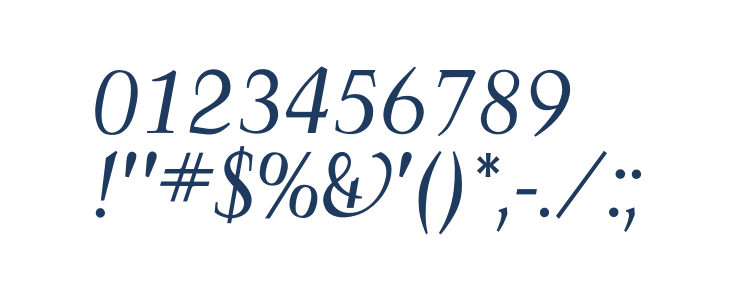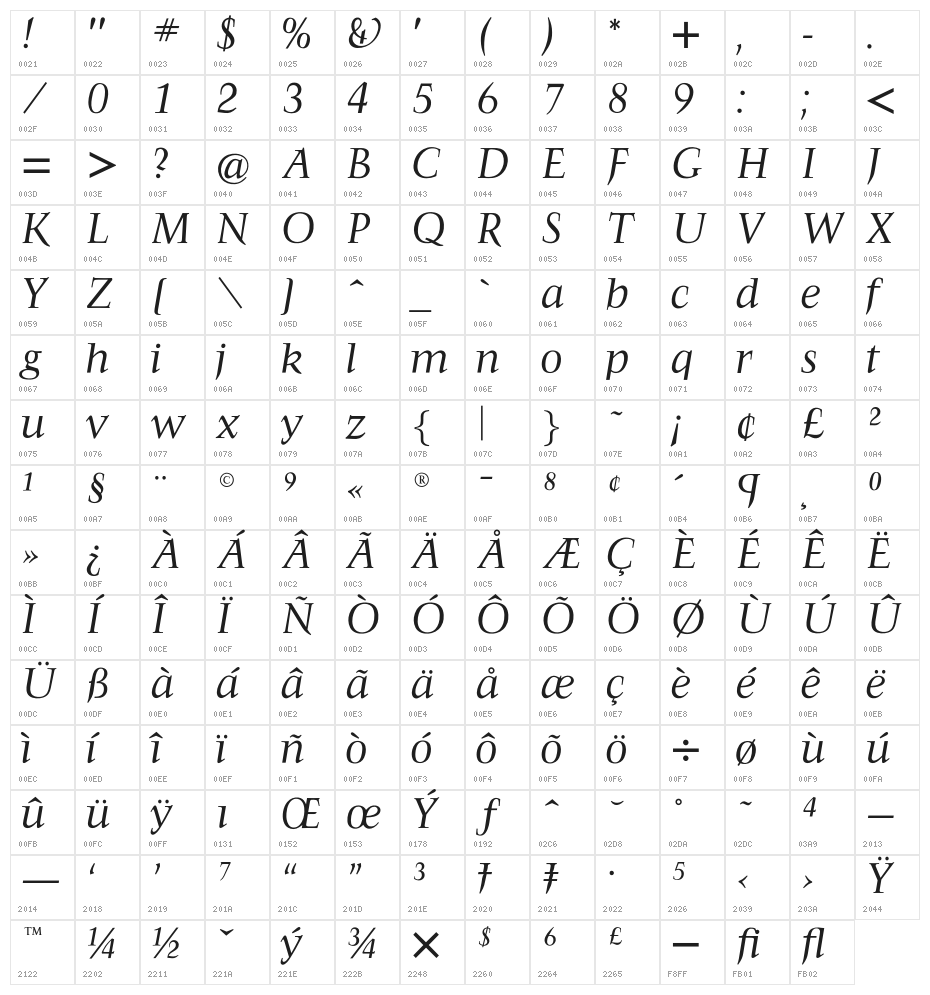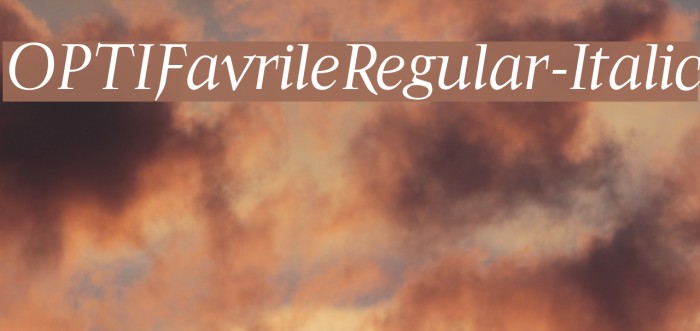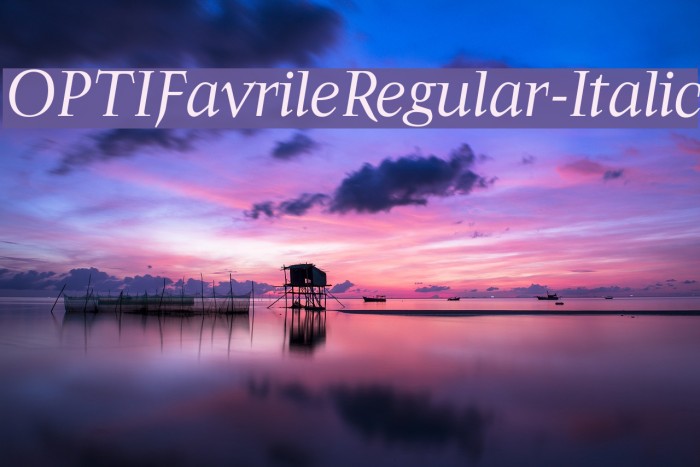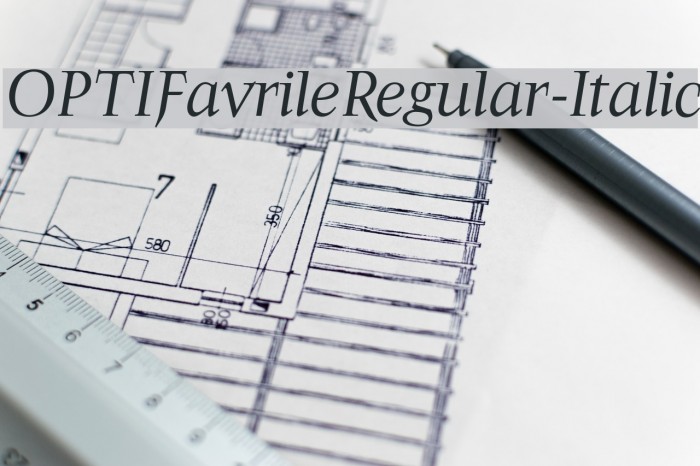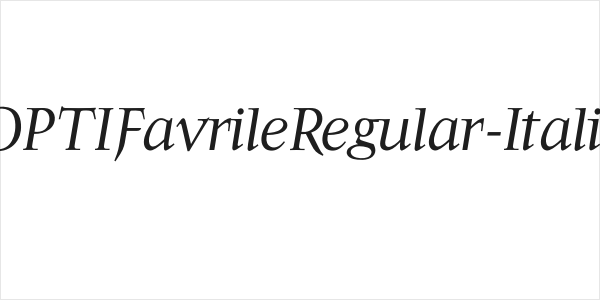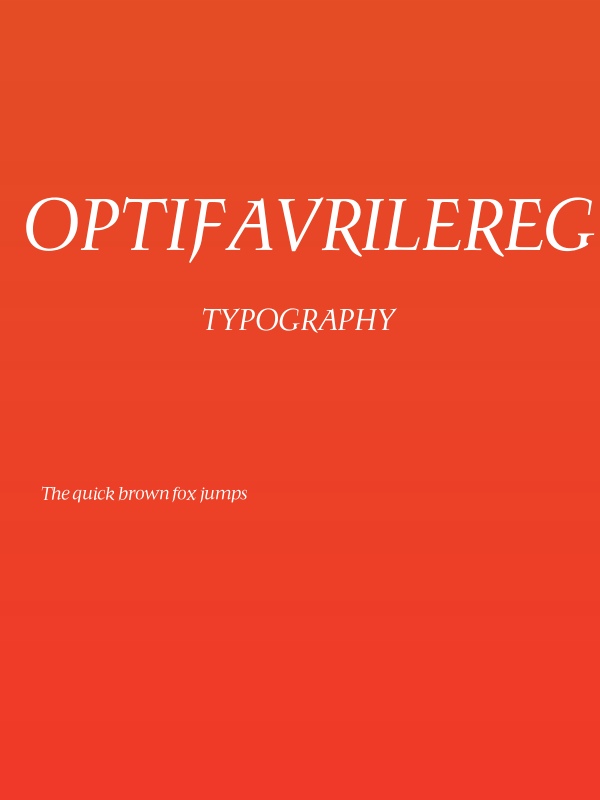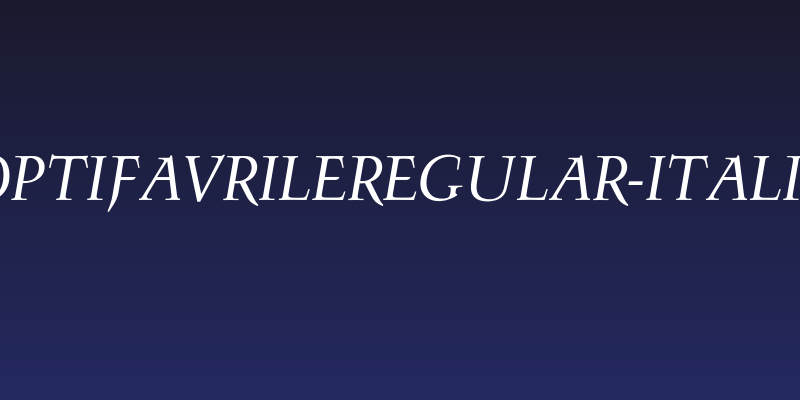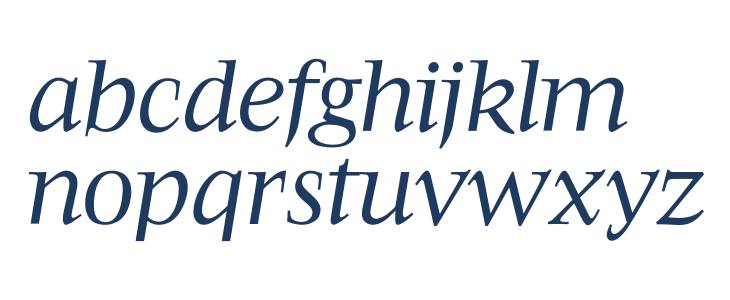
OPTIFavrileRegular-Italic Font
OPTIFavrileRegular-Italic Description
This elegant typeface features a sophisticated italic style with smooth, flowing lines and a refined appearance. The characters exhibit a classic serif design, with delicate curves and a slight slant that adds a sense of movement and grace. The uppercase letters are tall and stately, while the lowercase letters maintain a harmonious balance with their rounded forms. The numerals are consistent with the overall style, offering a clear and readable presentation. Special characters are thoughtfully designed, ensuring versatility in various applications. This font exudes a timeless charm, making it suitable for projects that require a touch of elegance and tradition.